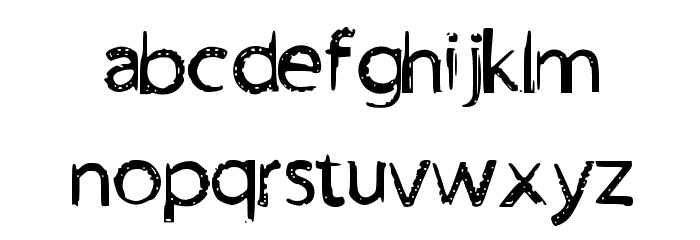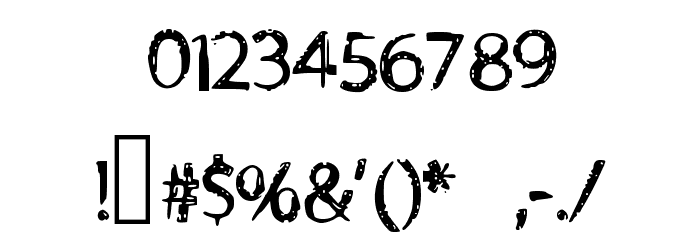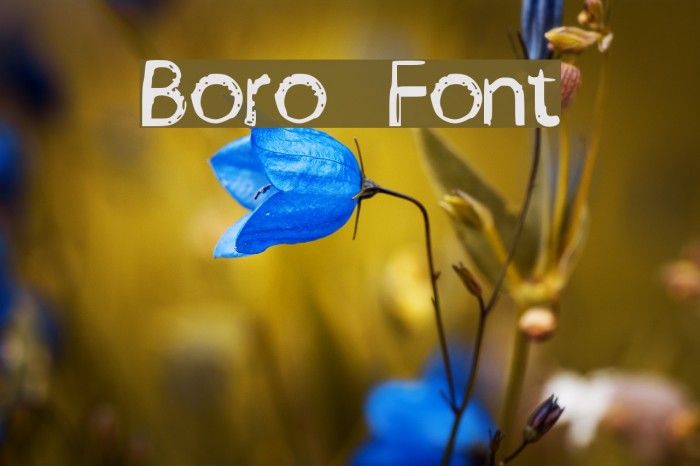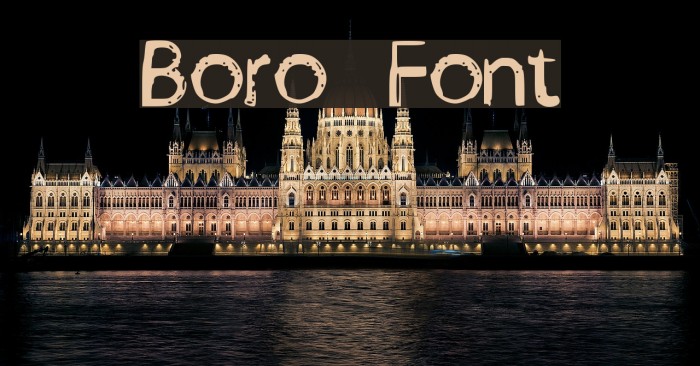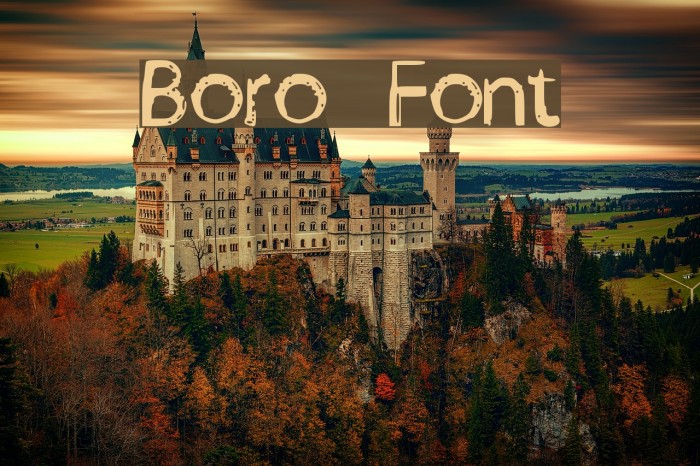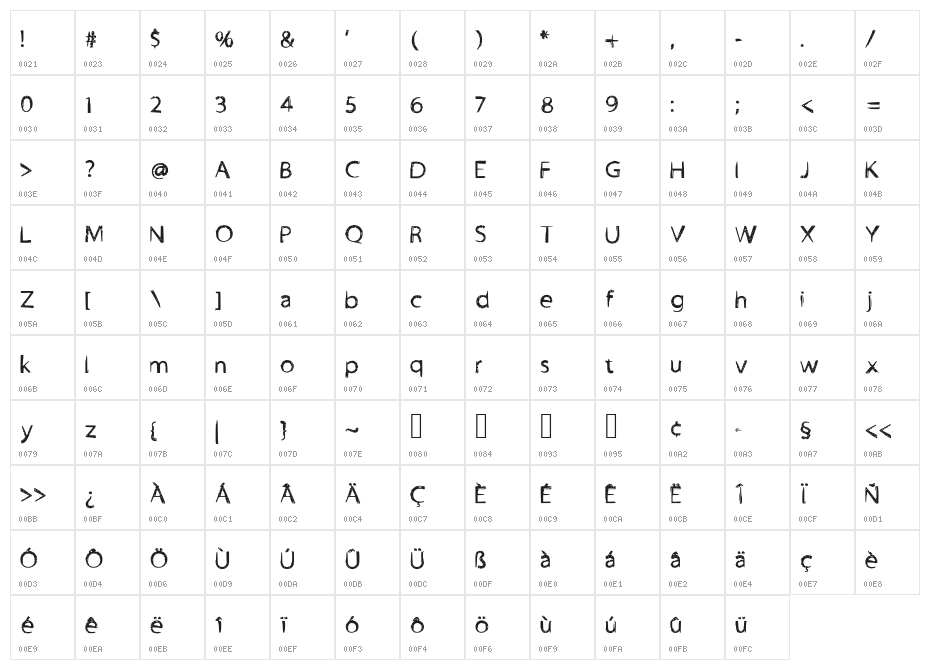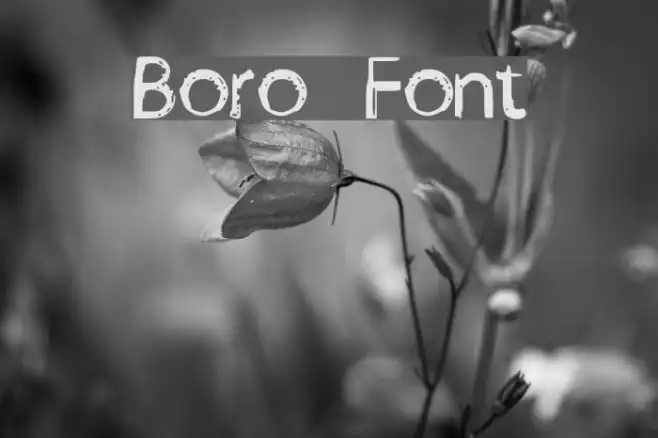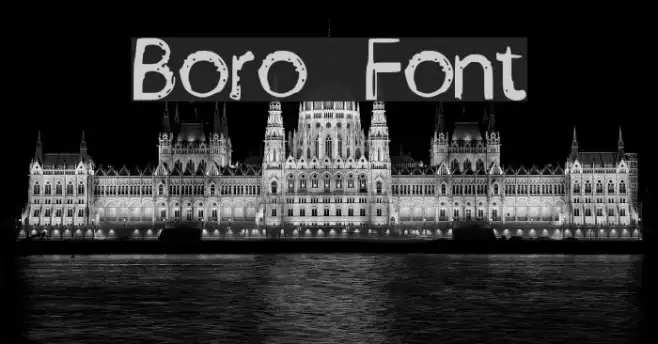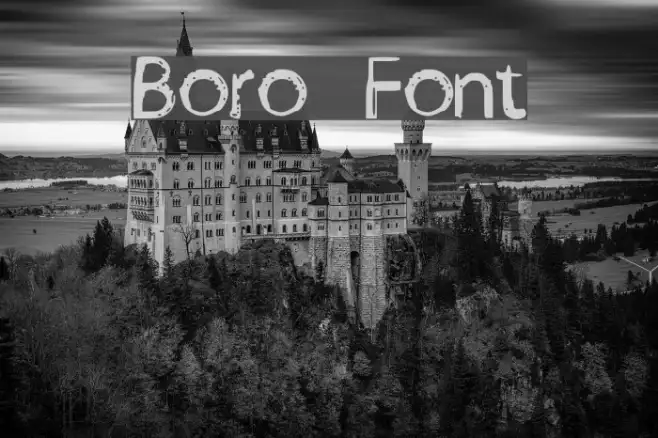
Boro Font
This font features a distressed and grungy aesthetic, characterized by uneven edges and a textured appearance that mimics wear and tear. The uppercase and lowercase letters maintain a consistent style, with each character exhibiting unique imperfections that add to the overall rugged look. The numerals and special characters follow the same design principles, ensuring a cohesive visual experience. This font's distinctive style makes it ideal for projects that require a bold and edgy statement, capturing attention with its raw and unrefined charm.
A distressed, grungy font with uneven edges and a textured look.
- Proposed Projects: Ideal for album covers, posters, urban-themed designs, and branding that requires a gritty, bold statement.
- Overall Style: Grunge, Urban, Edgy